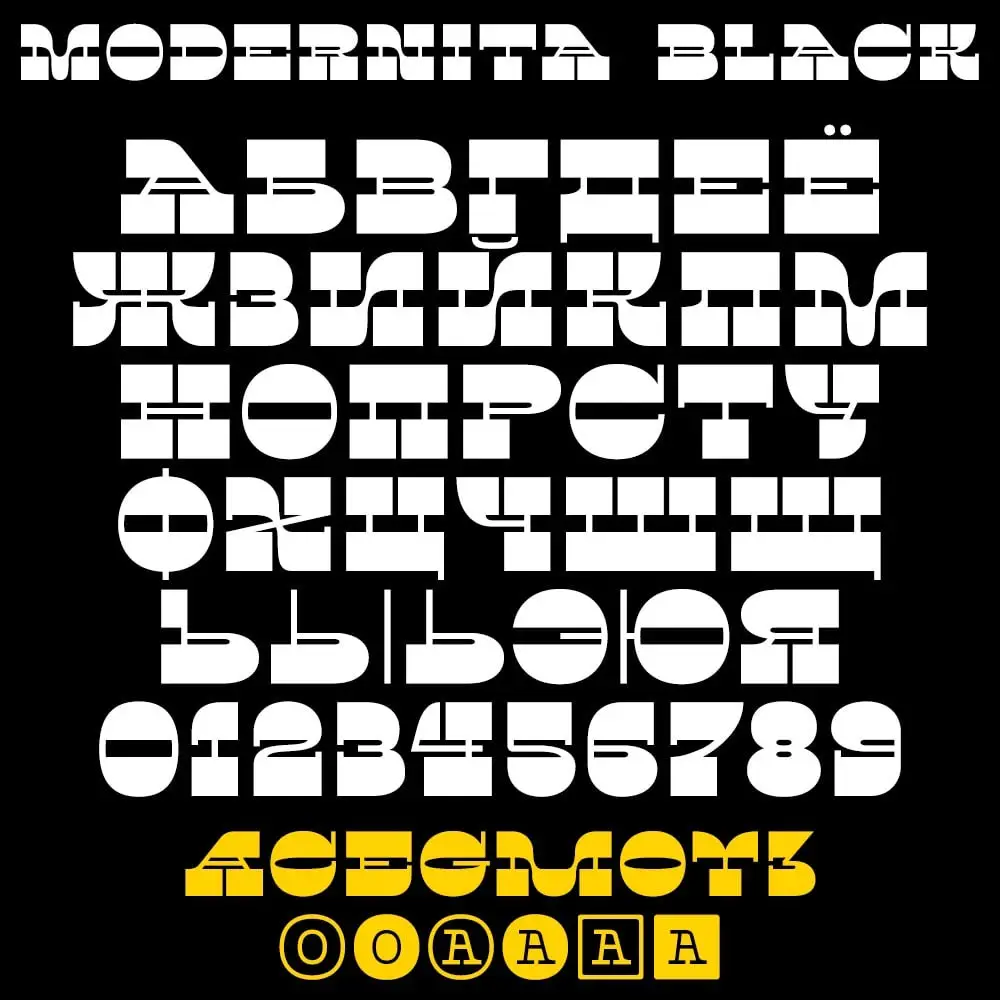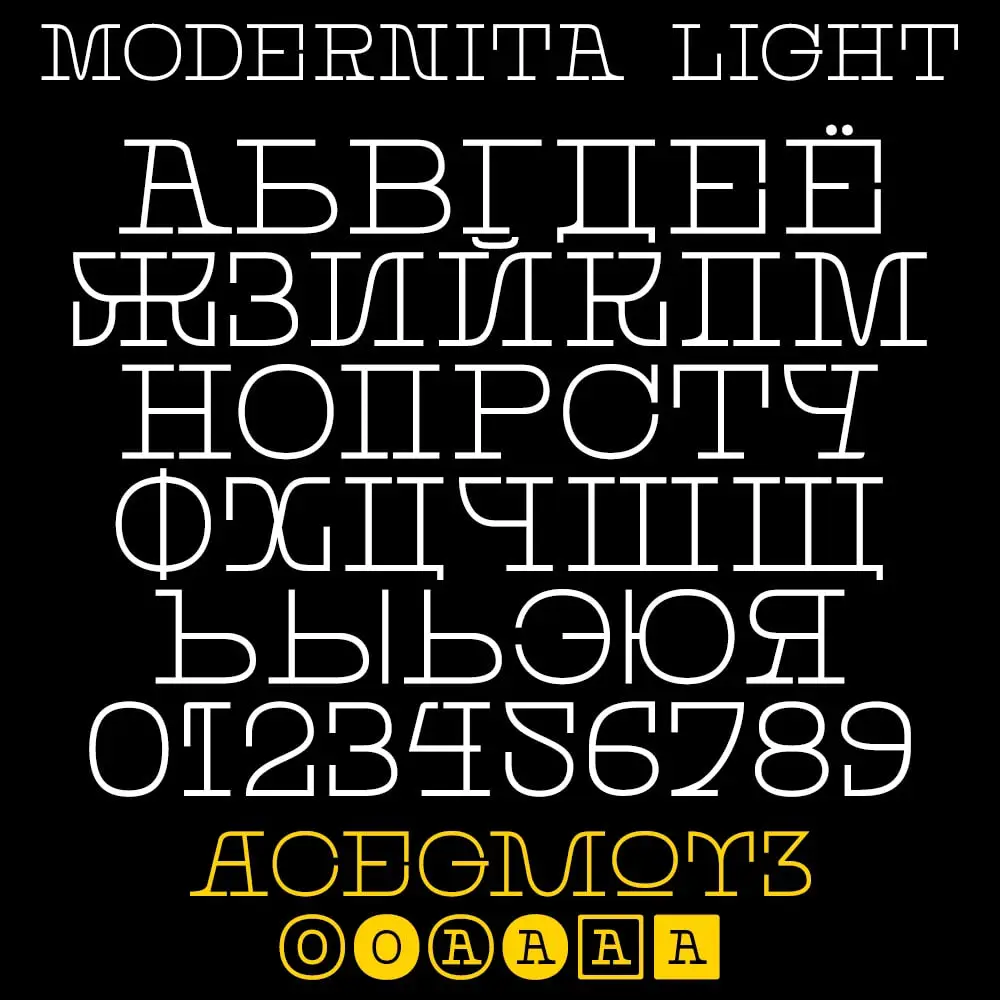
Introducing the Modernita 0 1 Font, a stylish and versatile typeface designed by Emmeran Richard. This font features a clean and modern aesthetic, perfect for a variety of applications.
The Modernita 0 1 Font includes a comprehensive Cyrillic character set, ensuring that your designs can communicate effectively in multiple languages. It is available in different weights, providing flexibility for various design needs.
- Modern and clean design
- Cyrillic character support
- Suitable for both print and digital media
Utilize the Modernita 0 1 Font for branding, logos, websites, and UI design to create a cohesive and professional look. Its modern style makes it ideal for contemporary projects.